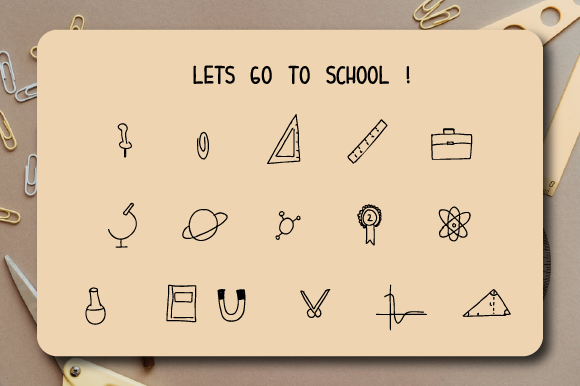
Introduction to Let’s Go to School Font
Remember the excitement of going back to school, surrounded by fresh notebooks, colorful pens, and the thrill of learning something new every day? That same sense of adventure and possibility can be brought to life in your creative projects with the Let’s Go to School Font.
As a designer, you’re always on the lookout for the perfect design resource to elevate your work and make it stand out. That’s where this unique dingbats font comes in – it’s a high-quality, free download that’s perfect for adding a touch of whimsy and fun to your school-related designs. With its transparent background, you can easily incorporate it into your designs without worrying about any distracting backgrounds.
Key Features of Let’s Go to School Font
- High-quality design: The Let’s Go to School Font is designed to be a perfect design resource for creative projects, offering a unique and playful touch.
- Transparent background: This font features a transparent background, making it ideal for use on a variety of backgrounds and designs.
- Large character set: The font includes a large character set, making it suitable for use in a variety of creative projects, from posters to print materials.
- High-resolution design: The font is designed at high resolution, ensuring that it looks great on both small and large scales.
- Perfect for educational projects: The Let’s Go to School Font is specifically designed for educational projects, making it a great resource for teachers, students, and designers working on school-related designs.
Honest Review: Let’s Go to School Font
I recently stumbled upon the Let’s Go to School Font, and I’m excited to share my thoughts on this design resource. As a designer, I’m always on the lookout for high-quality fonts that can elevate a creative project. Let’s Go to School Font definitely delivers in terms of its playful and whimsical feel.
- Fun and quirky design: The font’s unique style is perfect for projects that require a touch of personality.
- Transparent background: This feature allows for seamless integration with images and backgrounds, giving designers more creative freedom.
- Limited character set: The font’s character set is relatively limited, which may be a concern for designers working on projects that require a wide range of characters.
- No bold or italic styles: The font only comes in a regular style, which may not be suitable for projects that require bold or italic text.
Overall, I’m impressed with the Let’s Go to School Font’s potential as a design resource. While it has some limitations, its unique style and free availability make it a great choice for creative projects that require a playful touch.
Let’s Go to School Font is commonly used for school-related designs, such as flyers, posters, and presentations. It’s also great for creating a fun and playful atmosphere in educational settings. With its high-quality design, it’s a great resource for any creative project.